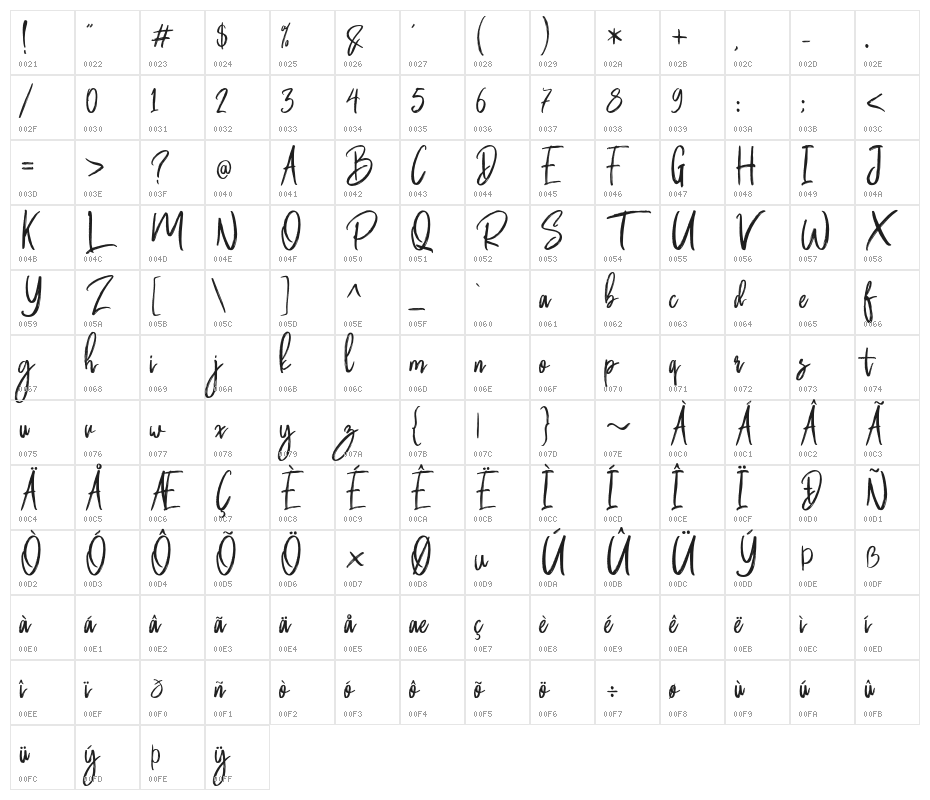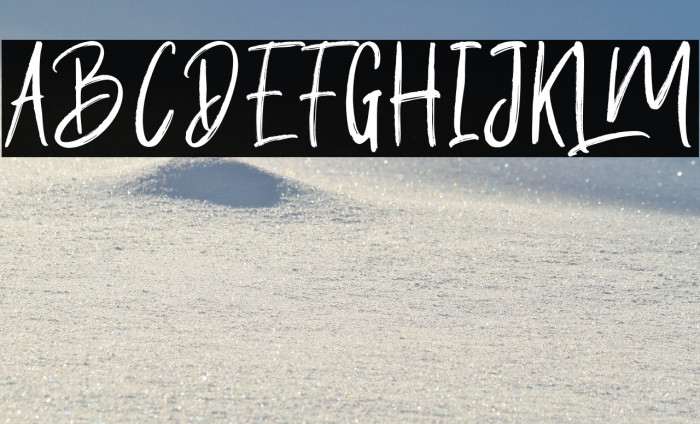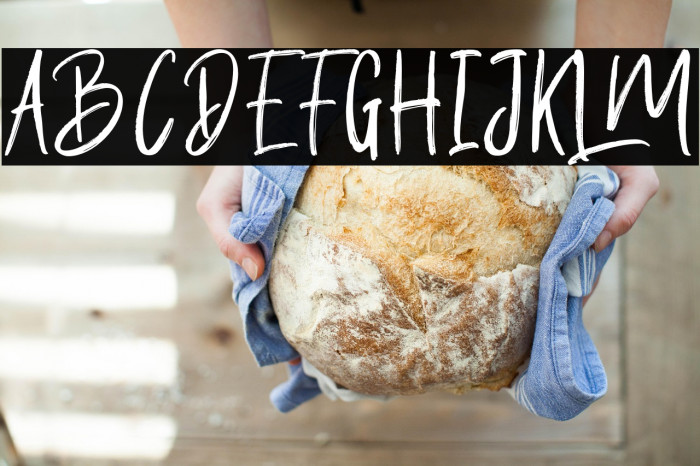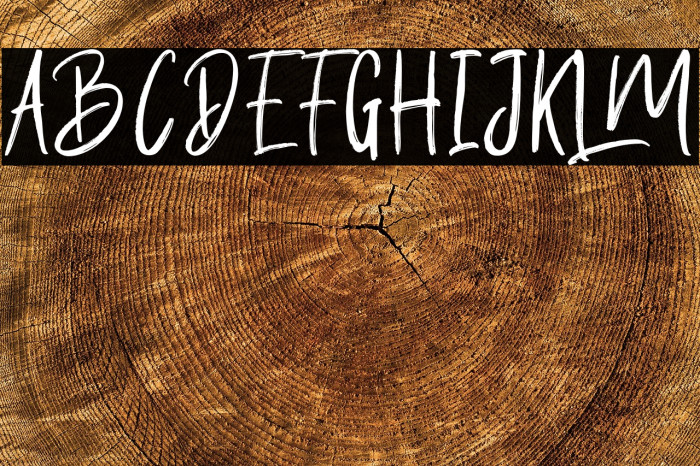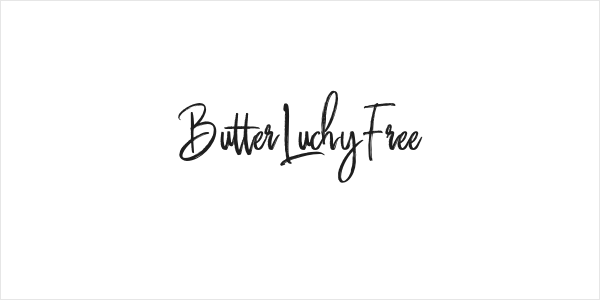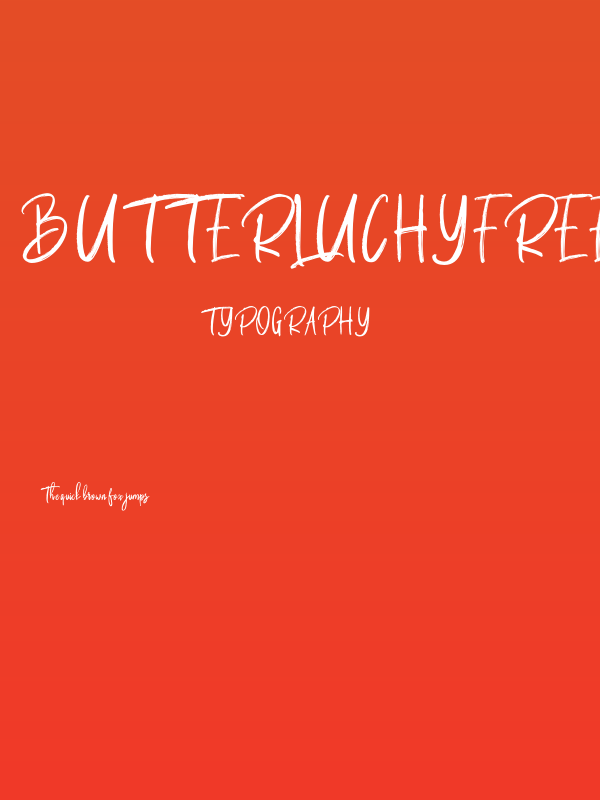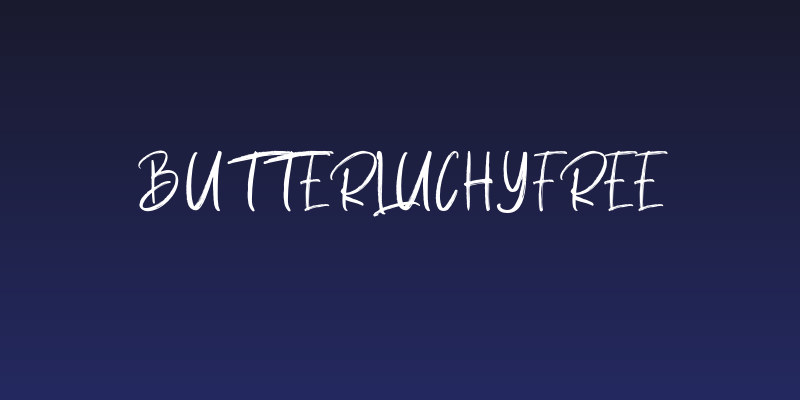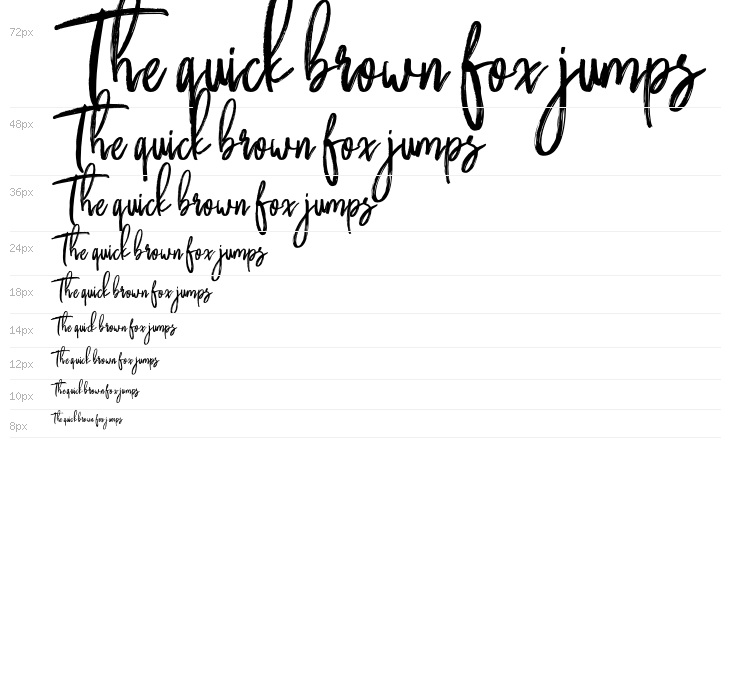
ButterLuchyFree Font
ButterLuchyFree Description
This font features a dynamic and expressive handwritten style, characterized by its fluid strokes and playful curves. The uppercase letters are bold and slightly slanted, giving a sense of movement and energy. The lowercase letters maintain a consistent flow, with some letters connecting seamlessly to others, enhancing the handwritten aesthetic. Numbers are crafted with the same lively style, ensuring uniformity across all characters. Special characters are creatively designed, adding a unique flair to the overall appearance. This font is perfect for projects that require a personal touch or a creative, informal vibe.